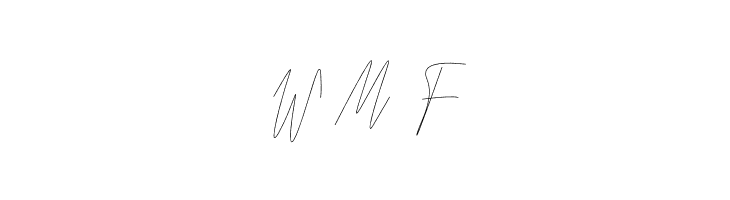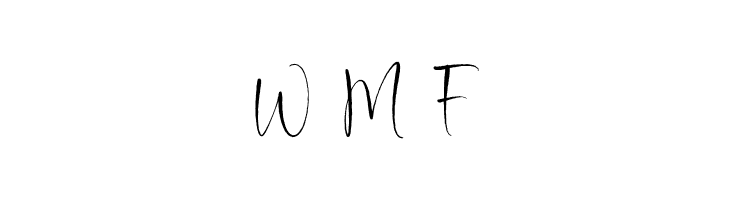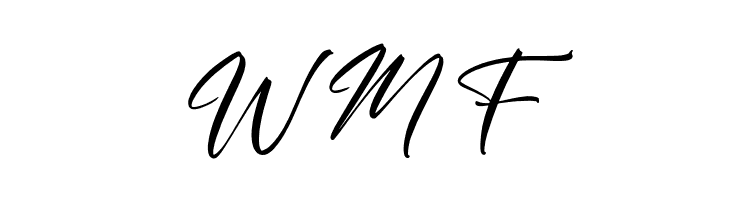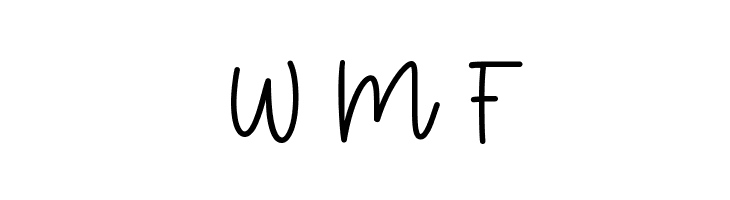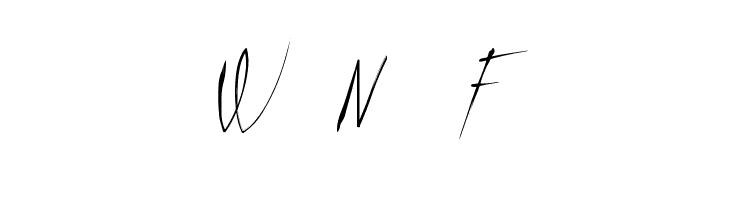
Elegant, handwritten script with a signature feel.
Thin, expressive handwritten script with a casual, organic feel.
A whimsical, handwritten script with tall, narrow, and flowing letterforms.
Handwritten script with a casual, friendly style.
Bold, rounded handwritten font with a playful and friendly style.
Elegant, thin handwritten script resembling a personal signature.
Casual handwritten script with rounded, smooth strokes.